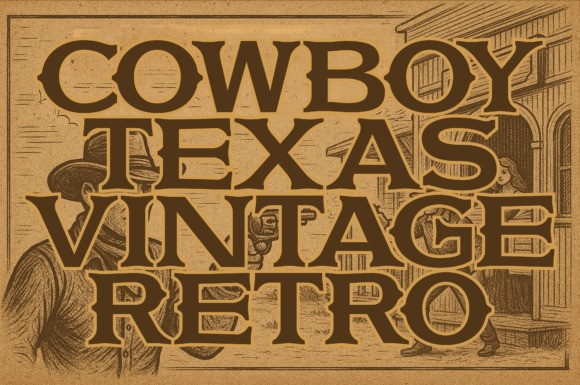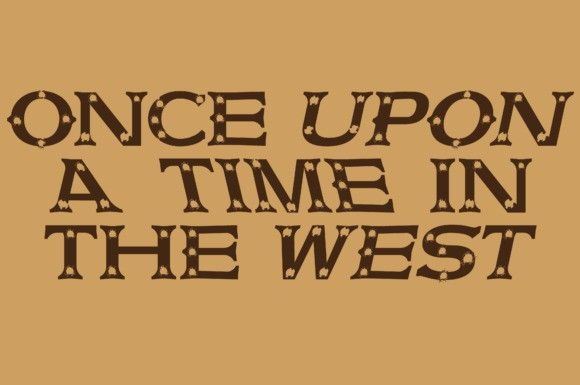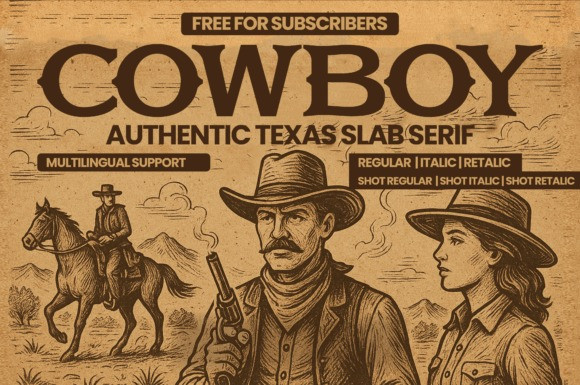
COWBOY VINTAGE FONT
Cowboy Vintage Font – Unleash the iconic, rip-roaring spirit of the wild west with the American-slab serif wonder, Cowboy. Carefully crafted to capture the rugged elegance of cowboy culture, this font suite is perfect for evoking a sense of nostalgia, authenticity and Americana. Whether you’re chasing a vintage or retro aesthetic, Cowboy adapts seamlessly, brandishing six individual styles:Regular, Italic, the irresistible charm of Retalic or ‘reversed Italic’, Regular shot , Italic Shot and Retalic shot Not confined to the screen, Cowboy stands tall in numerous physical formats – think packaging design, distinctive alcohol beverage branding, captivating book covers, and ostentatious magazine headers. It’s also a perfect partner for comic magazines and cartoon production, bringing stories to life in dramatic style. So saddle up and transform your projects with the untamed versatility of Cowboy.